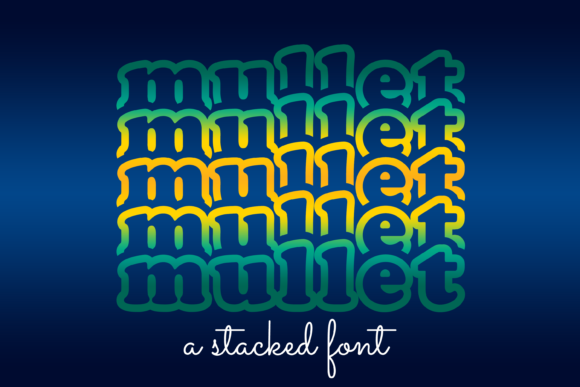
Mullet: The Bold and Versatile Display Font for Creative Projects
If you're looking for a font that commands attention and adds a unique flair to your designs, Mullet is the perfect choice. This display font stands out with its bold, eye-catching style, making it ideal for a wide range of creative applications. Whether you're working on a custom design, a DIY project, or just want to add a stylish touch to your work, Mullet offers a fresh and dynamic look that can elevate any visual.
What Makes Mullet Stand Out?
Mullet isn't just another fontβit's a statement. Its distinctive shape and strong presence make it a go-to option for anyone looking to create something memorable. The font's design balances creativity with readability, ensuring that even in large sizes, it remains clear and impactful. This makes it especially useful in situations where visual impact is key, such as branding, signage, or promotional materials.
Real-World Applications of Mullet
One of the most appealing aspects of Mullet is its versatility. It works well across different industries and projects. For example, in the world of graphic design, Mullet can be used to create striking headlines for posters, social media graphics, or magazine covers. Its boldness ensures that it grabs attention without overwhelming the viewer.
In the realm of DIY crafts, Mullet can transform simple projects into eye-catching masterpieces. Whether you're making custom signs, T-shirts, or greeting cards, this font adds a unique personality to your creations. It's particularly effective when paired with other fonts or colors to create contrast and visual interest.
Businesses looking to establish a strong brand identity may also find Mullet useful. From logos to packaging, this font can help convey a sense of confidence and style. It's especially popular among brands targeting younger audiences who appreciate bold and unconventional design choices.
Who Benefits from Using Mullet?
Designers, artists, and entrepreneurs all have different needs when it comes to typography, and Mullet caters to a variety of these. For designers, it's a tool that allows for creative expression while maintaining clarity. For artists, it offers a way to add a personal touch to their work without compromising on aesthetics. Entrepreneurs, on the other hand, can use it to make their branding stand out in a crowded market.
Even those with limited design experience can benefit from Mullet. Its straightforward style means it's easy to use in various contexts. Whether you're creating a website header, a business card, or a social media post, Mullet provides a professional yet distinctive look that can enhance your work without requiring advanced skills.
Considerations Before Using Mullet
While Mullet is a powerful font, it's important to consider how it fits into your overall design. One key factor is legibility. While it's readable at larger sizes, using it in small text may not be the best choice. Always test it in the context where it will be used to ensure it meets your needs.
Another consideration is the audience. Mullet's bold and unconventional style may not be suitable for every project. If you're aiming for a more traditional or minimalist look, you might want to pair it with a simpler font or use it sparingly. However, if you're going for a modern, edgy aesthetic, Mullet can be a game-changer.
Additionally, think about the medium where the font will be displayed. Mullet works well in digital formats like websites and social media, but it may require adjustments when used in print. Always check how it looks in different resolutions and formats to ensure consistency.
Strengths and Limitations of Mullet
The main strength of Mullet lies in its ability to make a strong visual impression. Its bold lines and distinctive shape make it ideal for headlines, titles, and other prominent text elements. It's also highly customizable, allowing users to adjust spacing, size, and color to fit their specific needs.
However, Mullet is not a one-size-fits-all solution. Its bold nature can sometimes be overpowering, so it's best used in moderation. In some cases, it may not blend well with other design elements, requiring careful planning to achieve a balanced look. That said, when used correctly, Mullet can add a level of uniqueness and sophistication that other fonts simply can't match.
How to Incorporate Mullet Into Your Work
One practical approach is to use Mullet for headings and subheadings rather than body text. This allows it to shine without overwhelming the reader. Pairing it with a more neutral font for the rest of the content can create a visually pleasing contrast that enhances readability.
Another idea is to experiment with color and background. Mullet's bold style can be accentuated by using high-contrast colors, such as black on white or dark text on a bright background. This can make your designs more engaging and memorable.